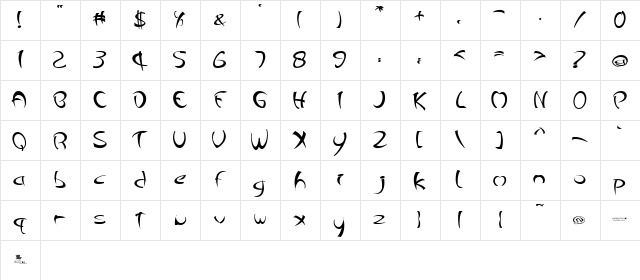
Changstein Regular Free Font
Changstein Regular
Design Context for Changstein
Changstein is a composed and adaptable typeface that performs quietly and consistently across a wide range of design contexts.
Pro Tip: Use Changstein in both headline and body roles to test its range before committing to a single application.